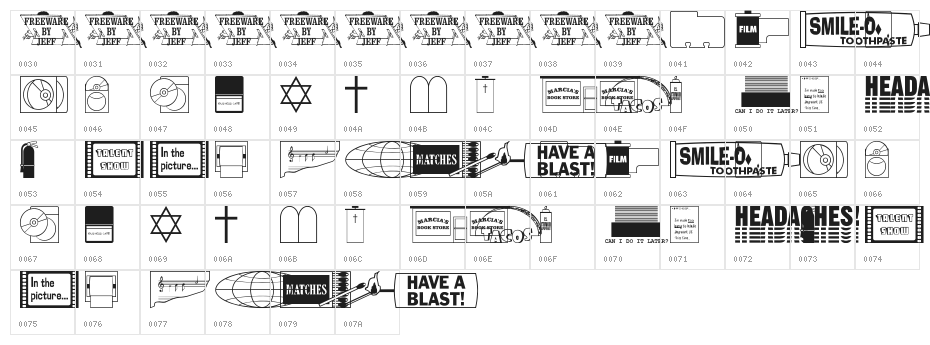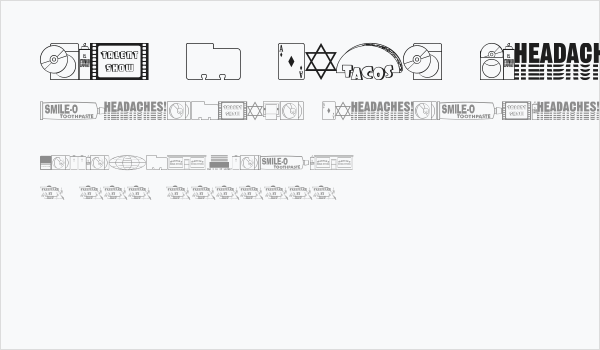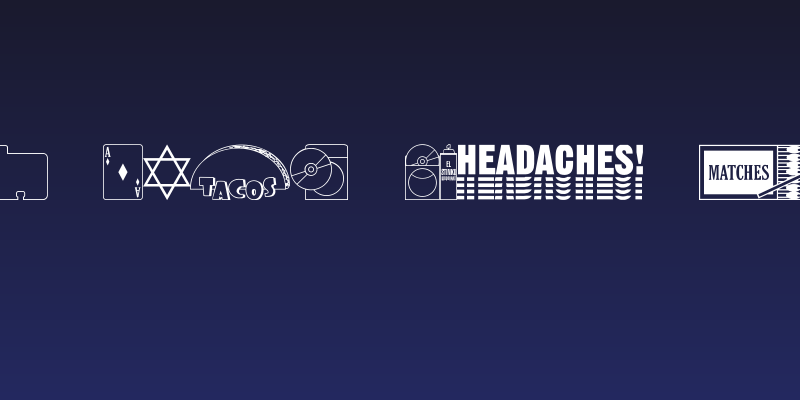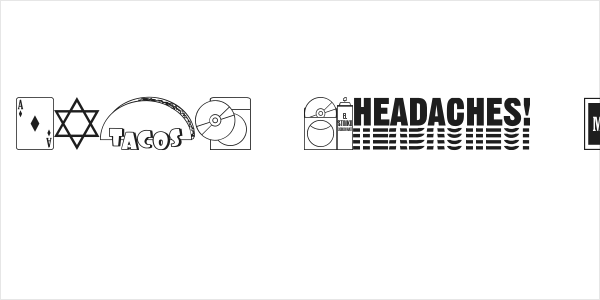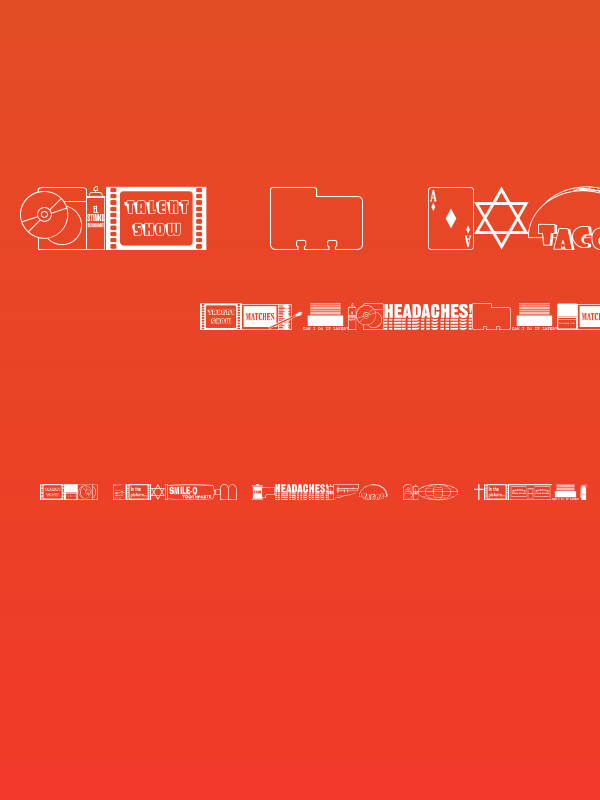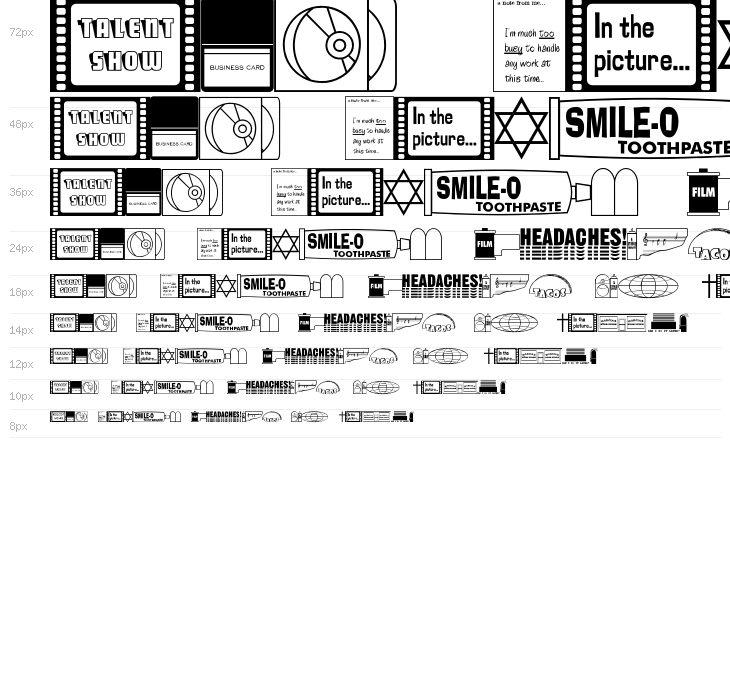
Got A Ding For You JL Font
Got A Ding For You JL Description
This font is a highly decorative and playful collection of dingbats and symbols, featuring a variety of whimsical and retro-inspired graphics. Each character is represented by a unique illustration, ranging from toothpaste tubes and film reels to rockets and matchboxes. The style is reminiscent of vintage advertisements and packaging, offering a nostalgic and quirky aesthetic. The designs are bold and detailed, making them suitable for creative and artistic projects that require a touch of humor and nostalgia.
| Overall Style | Vintage, Decorative |
| Use Case | Logos, Posters, Artistic Designs |
| Proposed Projects | Ideal for creative projects such as posters, greeting cards, scrapbooking, and retro-themed designs. |